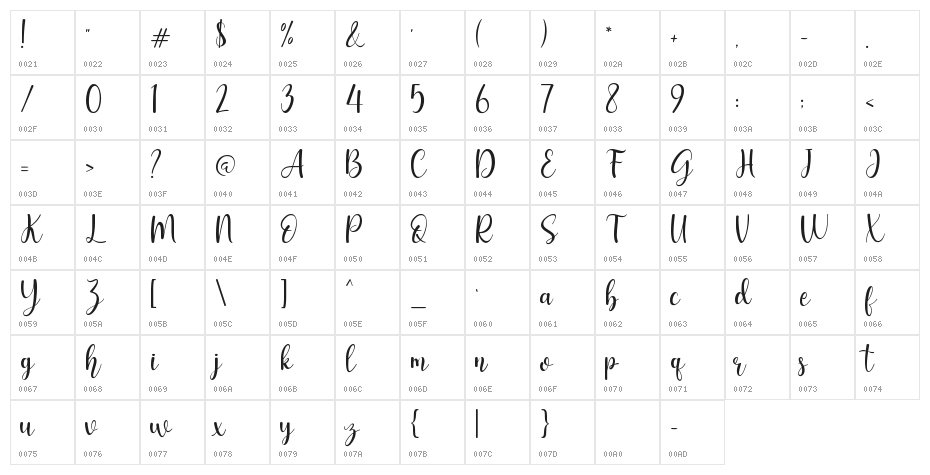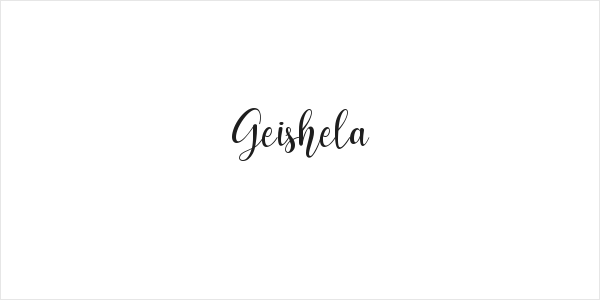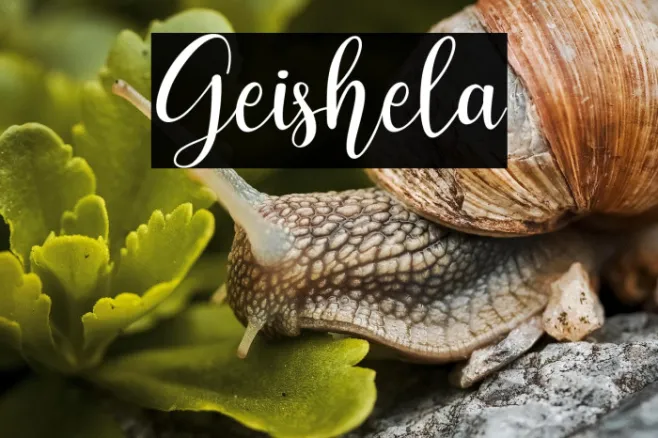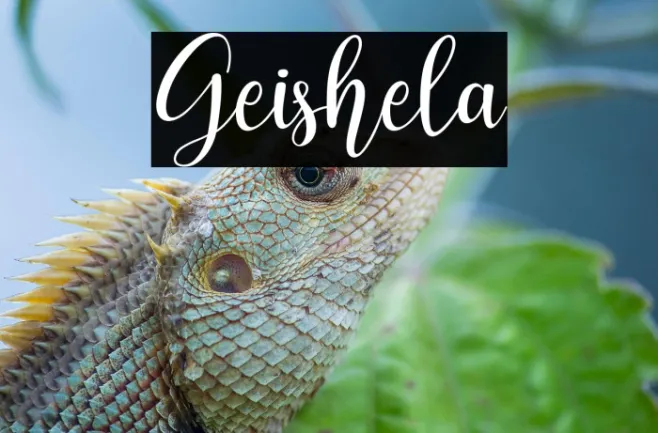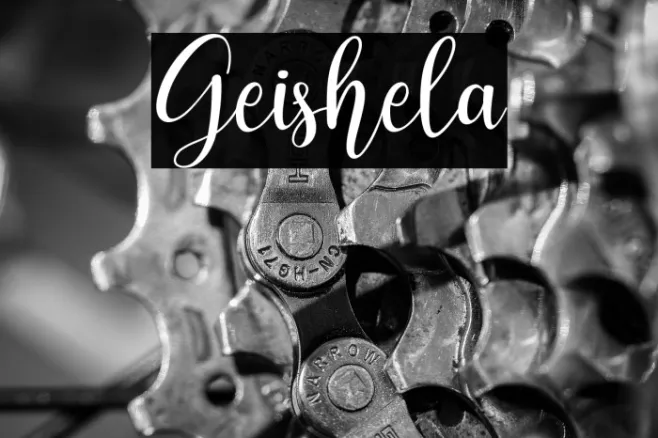
Geishela Font
Geishela Description
This font features a flowing, cursive style with elegant, sweeping curves and a handwritten aesthetic. The uppercase letters exhibit a graceful and sophisticated appearance, with each character seamlessly connecting to the next. The lowercase letters maintain a consistent style, offering a harmonious blend of loops and swashes that enhance its decorative nature. The numerals are designed to match the script's fluidity, providing a cohesive look across all characters. Special characters are thoughtfully integrated, maintaining the overall aesthetic. This font is ideal for projects that require a personal touch, such as invitations, greeting cards, or branding materials.